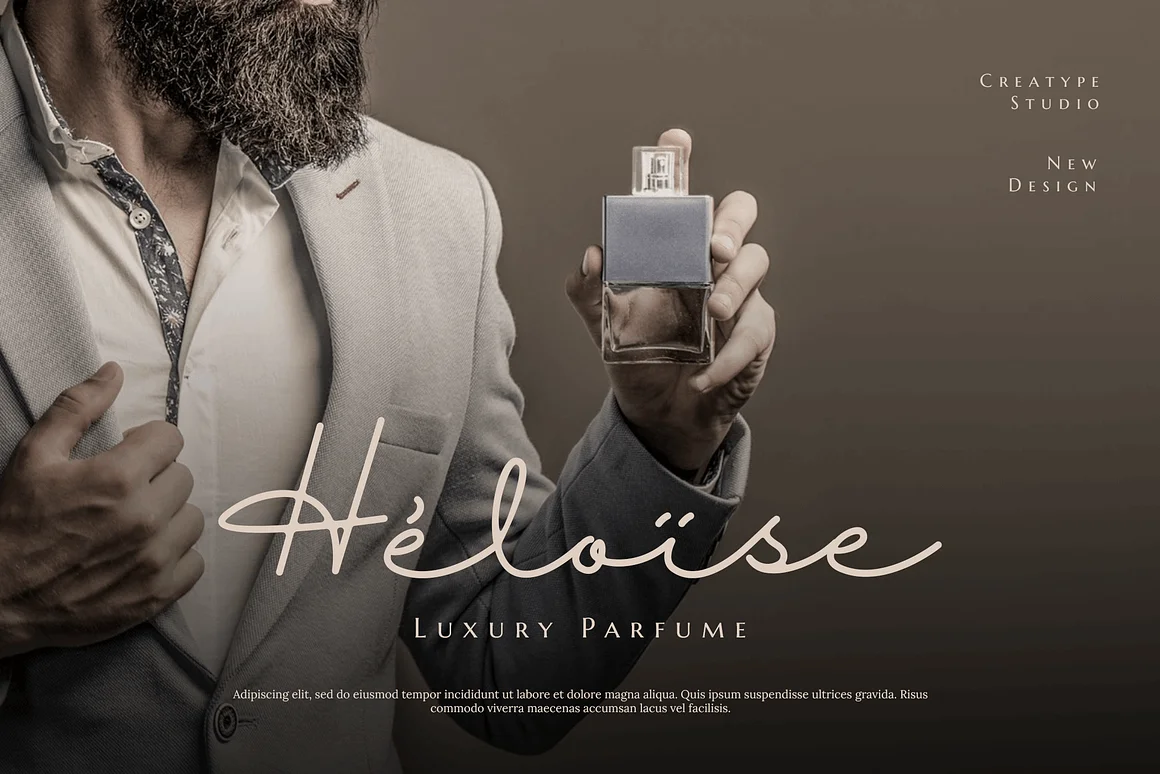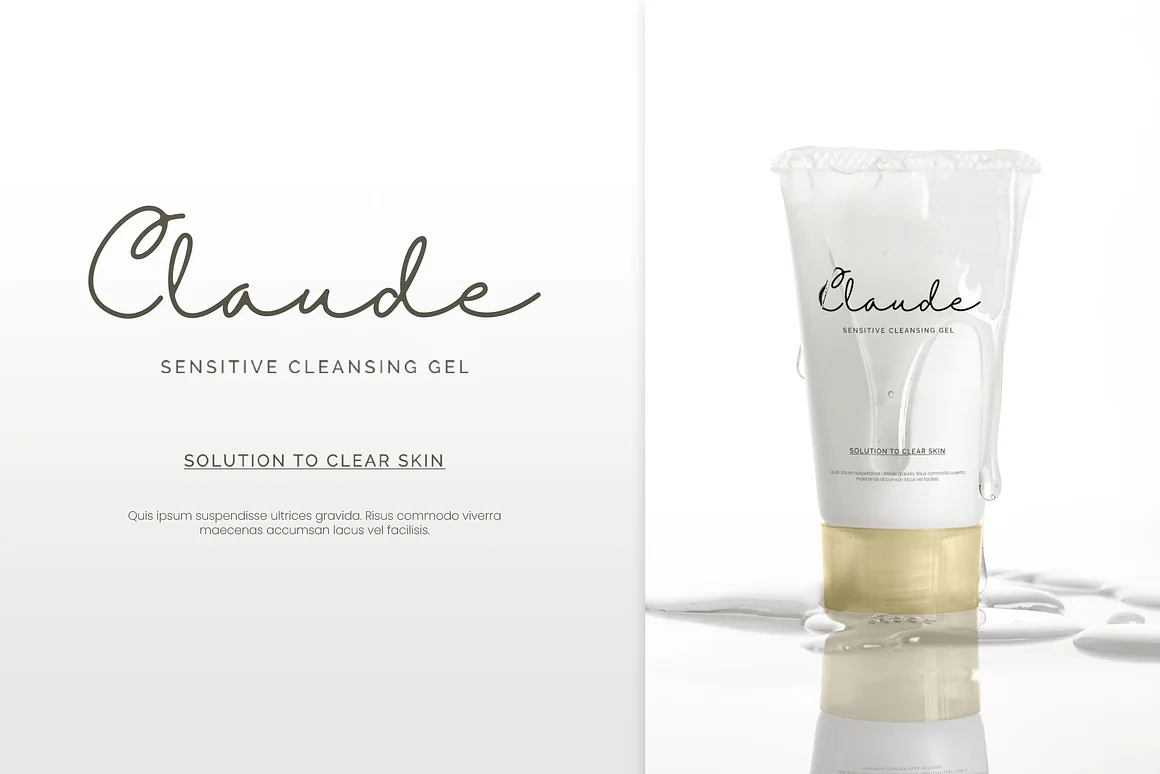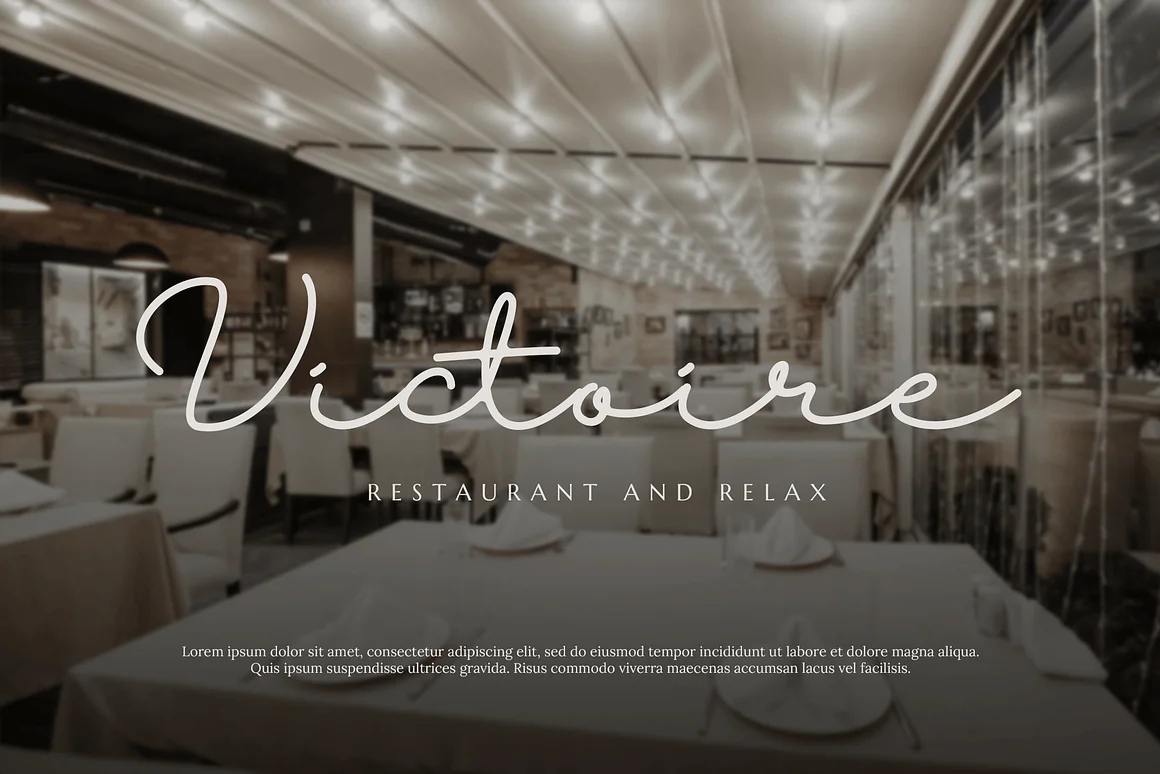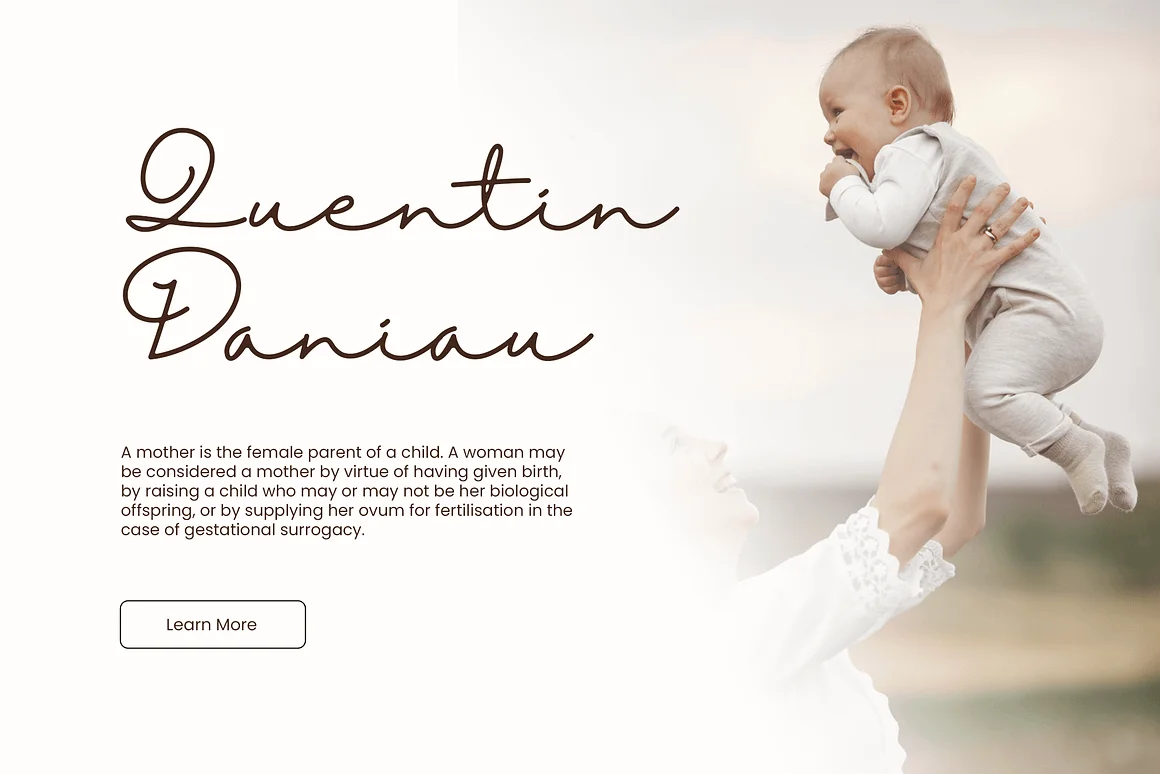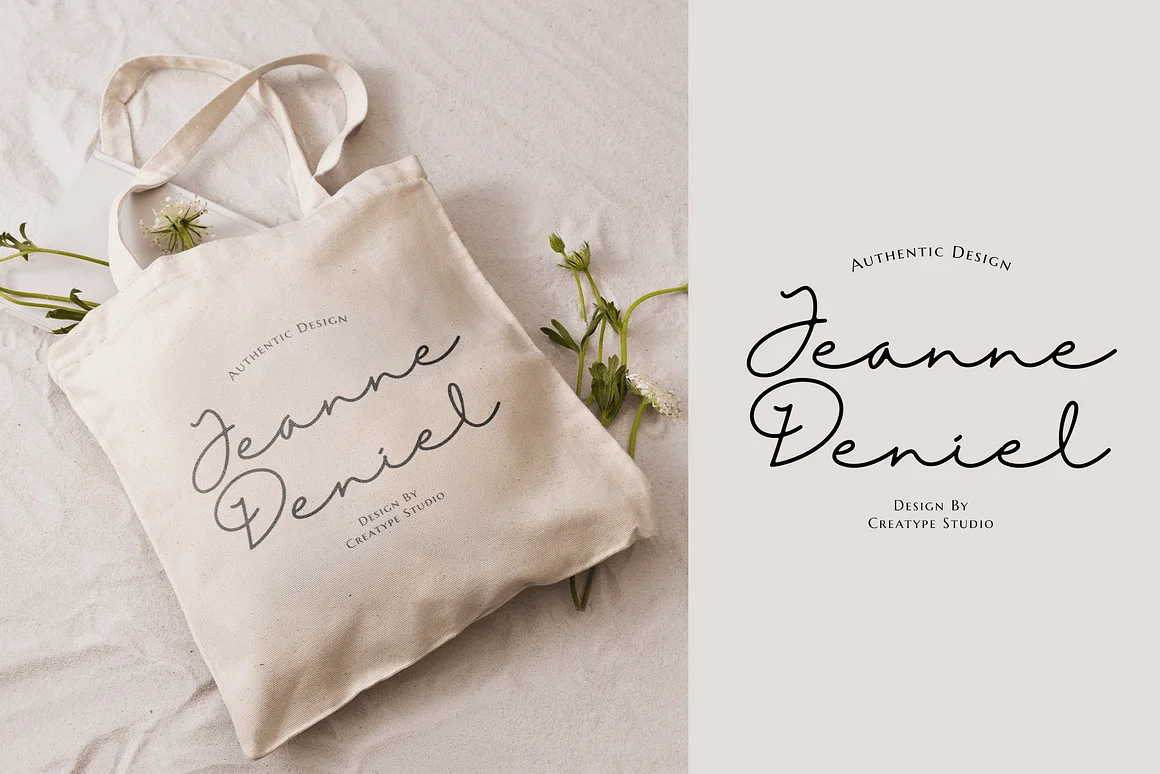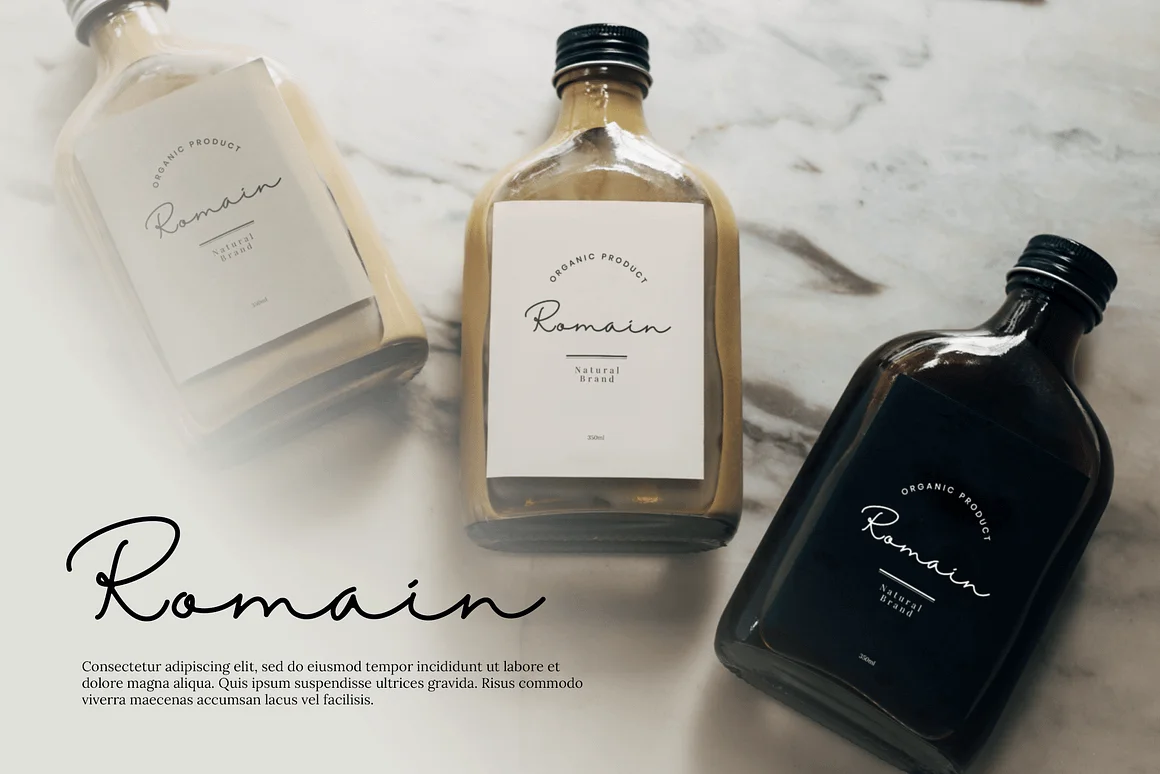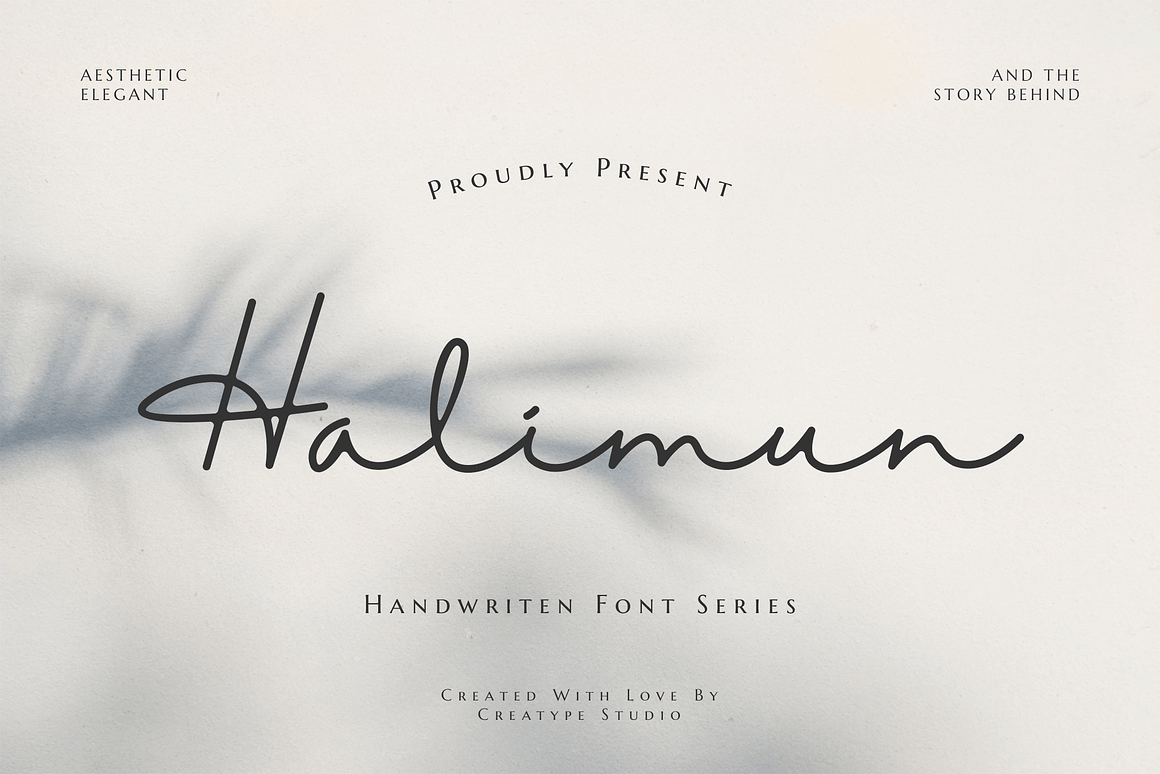
Halimun Script Business Font
Halimun Script Business Font is perfect for professional business branding, executive signatures, corporate letterheads, elegant business cards, upscale service industries, financial institution branding, law firm logos, consulting company materials, premium real estate marketing, and sophisticated corporate communications.
What makes Halimun Script Business Font so exciting is its perfect balance of professional authority and elegant sophistication that creates instant credibility and trustworthiness. This distinguished script typeface combines business professionalism with refined elegance, delivering typography that communicates competence, reliability, and premium quality.
The Halimun Script Business Font family includes regular and bold weights, featuring professional flourishes, business-appropriate ligatures, elegant alternates, and sophisticated design elements that provide executives and designers with comprehensive tools for creating authoritative business communications.
Elevate your professional presence with Halimun Script Business Font, a meticulously crafted script typeface that brings executive-level sophistication to business communications. This exceptional font embodies the perfect fusion of professional credibility and elegant refinement, making it an essential tool for businesses that demand typography reflecting their commitment to excellence.
The professionally designed letterforms of Halimun Script Business Font showcase refined elegance with authoritative character that instantly communicates trustworthiness and executive quality. Each character displays careful attention to maintaining business appropriateness while preserving the sophisticated appeal that distinguishes premium service providers. The font's balanced proportions and professional spacing contribute to its authoritative appearance and executive-level quality.
Corporate executives and professional service providers consistently choose Halimun Script Business Font for communications requiring uncompromising professionalism and sophisticated presentation. The comprehensive character set includes uppercase and lowercase letters, numerals, business symbols, extensive punctuation, and professional alternates that provide complete support for executive-level business applications and corporate branding requirements.
The executive appeal of Halimun Script Business Font ensures exceptional performance across both traditional business print applications and modern digital corporate platforms. Whether developing professional brand identities, creating executive marketing materials, or designing sophisticated business communications, this remarkable typeface delivers consistent authority that builds trust and communicates competence.
Transform your business communications with Halimun Script Business Font. This distinguished script typeface brings executive-level sophistication and professional authority to typography, making it the definitive choice for businesses that create communications worthy of the highest levels of professional respect and client confidence.